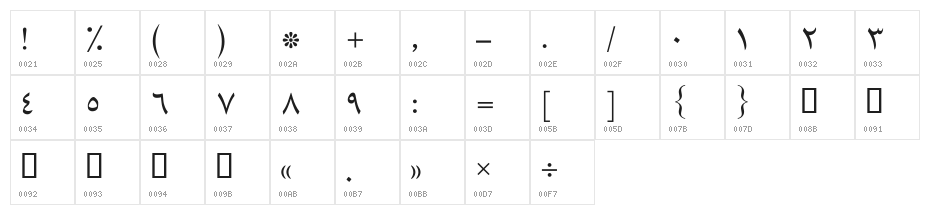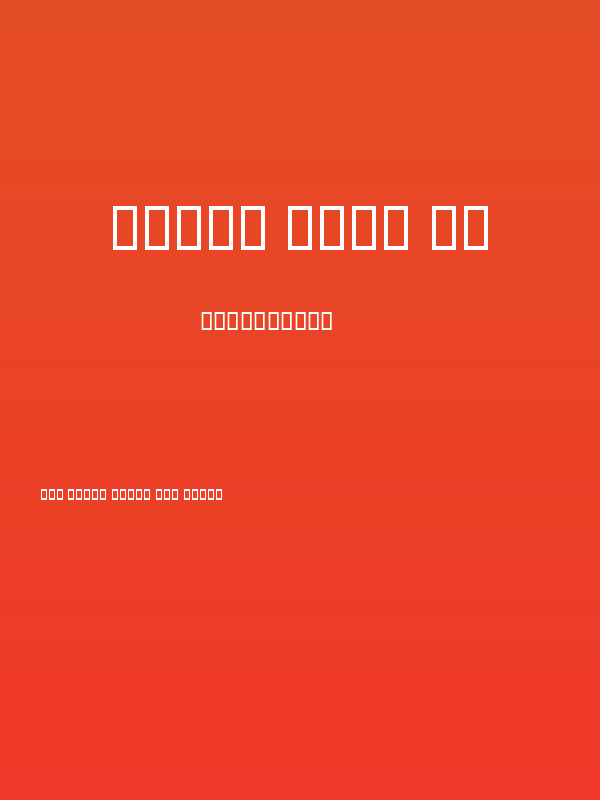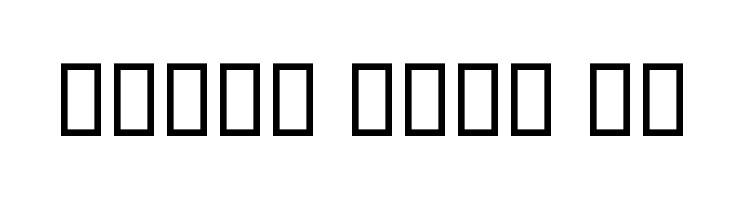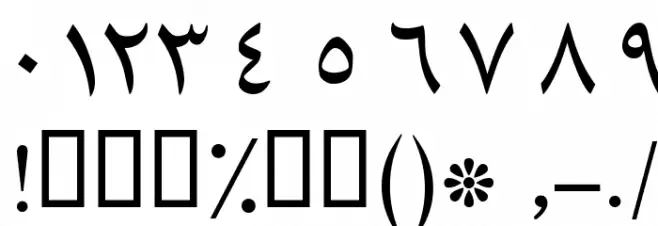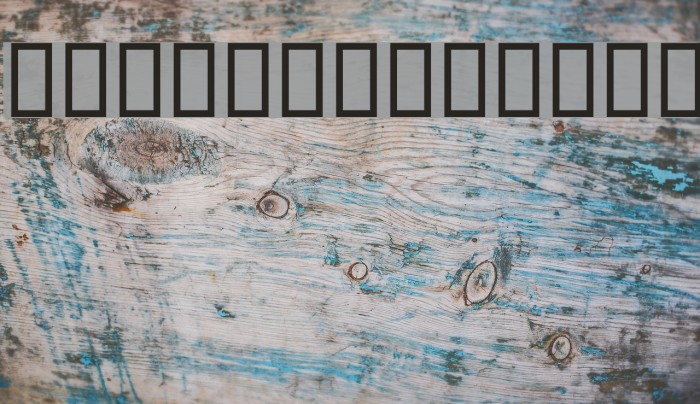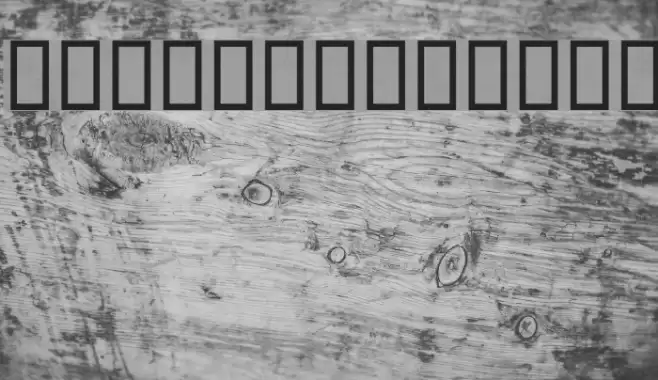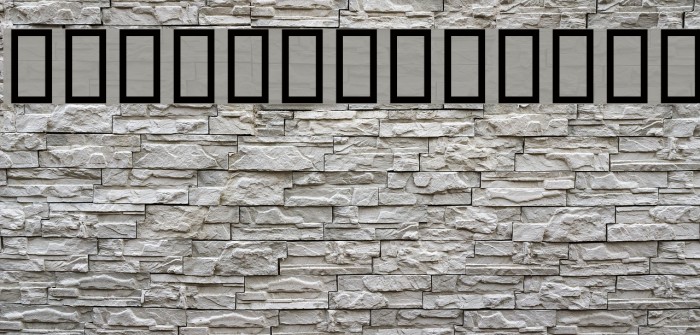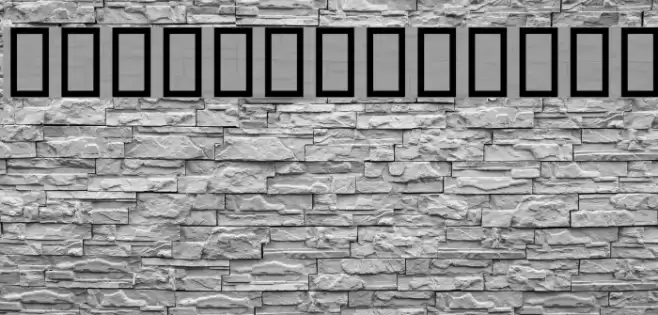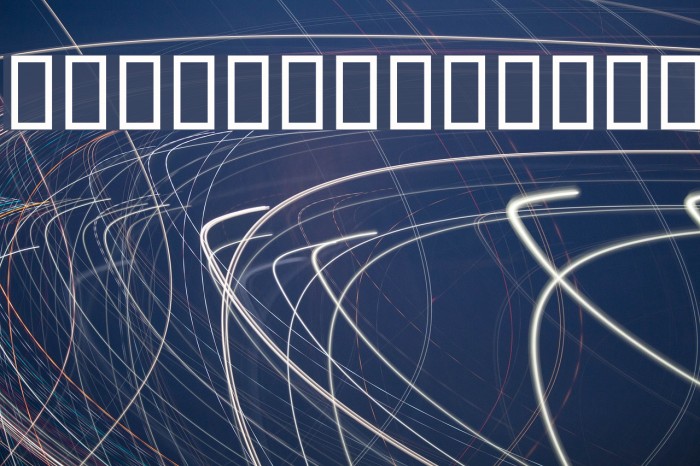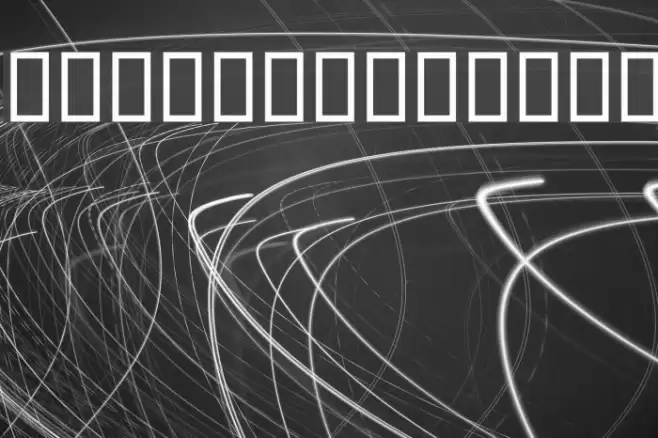
Naskh Type II Font
This font showcases a traditional and elegant style, characterized by its flowing curves and intricate details. The script is reminiscent of classical calligraphy, with each character exhibiting a harmonious balance between form and function. The numerals are distinct and well-defined, adding to the overall aesthetic appeal. The special characters are thoughtfully designed, maintaining the font's cohesive look. This typeface is ideal for projects that require a touch of sophistication and cultural richness.
| Overall Style | Classic |
| Use Case | Logos, Invitations, Artistic projects |
| Proposed Projects | Ideal for cultural publications, formal invitations, and artistic projects that require a sophisticated touch. |